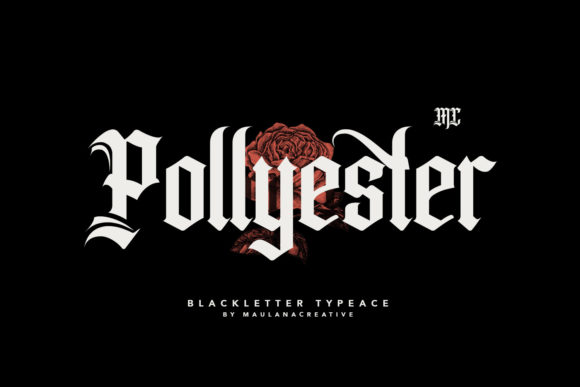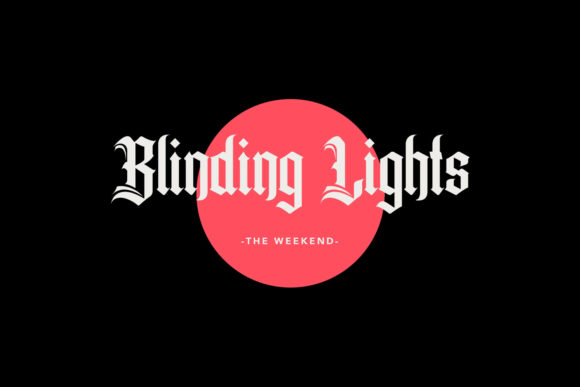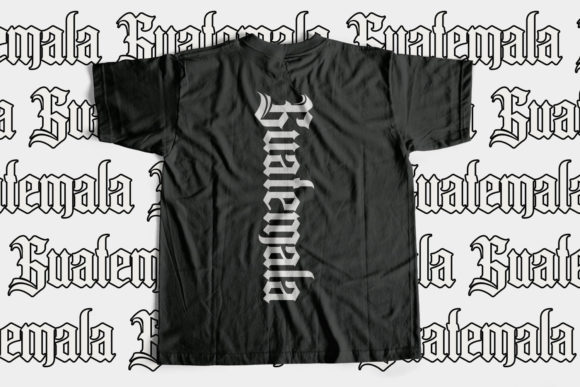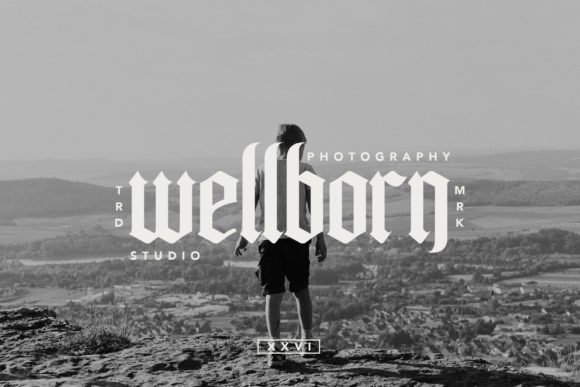
Pollyester Font: A Retro Blackletter for Unique Logo Design
About the Pollyester Font
Unleash your creativity with Pollyester Font, a versatile font perfect for a wide range of applications. Pollyester feels playfully nostalgic and delivers an incredible vintage aesthetic. Use this blackletter font to add that special retro touch to any design idea you can think of!
Fall in love with its incredibly distinct and timeless style and use it to create spectacular designs!
Pollyester excels in headlines, short text blocks, and logos where its vintage charm and bold character shine. It’s ideal for projects evoking nostalgia, such as retro-themed branding, posters for vintage events, or packaging for products with a heritage feel. However, its highly decorative nature makes it unsuitable for body text or UI elements where readability is paramount. Long paragraphs set in Pollyester would be difficult to read.
Pairing Pollyester effectively requires a contrast in weight and style. A clean sans-serif like Futura or a geometric sans-serif like Bebas Neue would provide a modern counterpoint, creating a balanced and visually appealing composition. For a more traditional feel, a classic serif like Garamond or Times New Roman could work well.
Pollyester’s personality is undeniably bold and playful, yet possesses a sophisticated vintage appeal. This makes it a versatile choice for brands aiming for a retro-inspired aesthetic without appearing dated or overly whimsical.
Pollyester Font Usage Examples
Pollyester Font Example